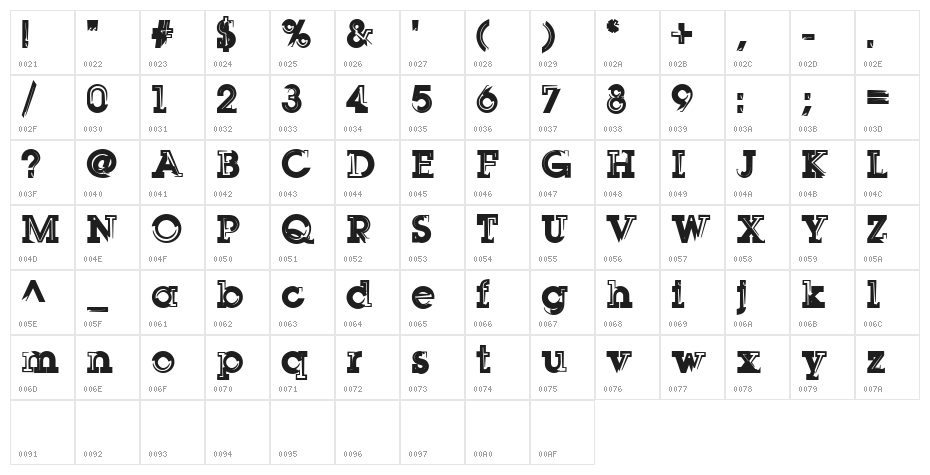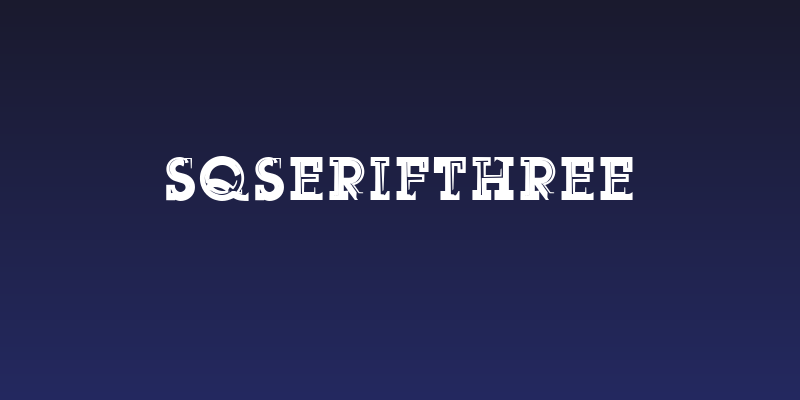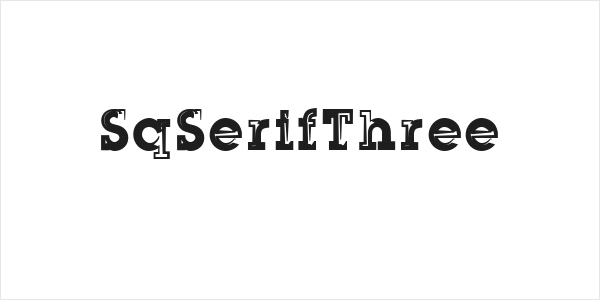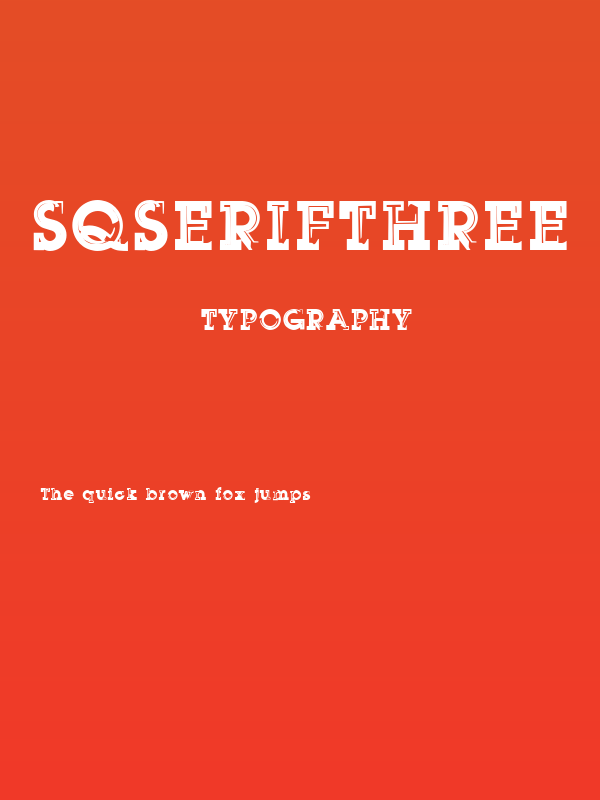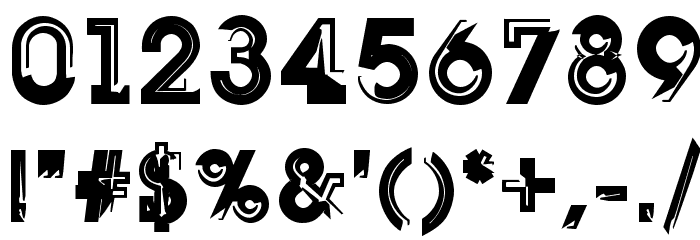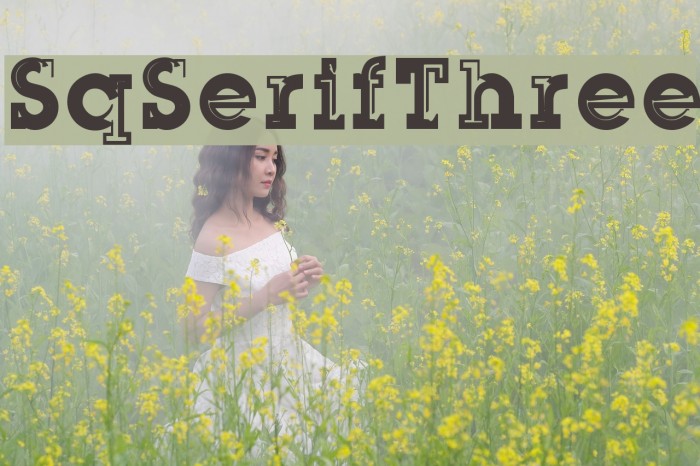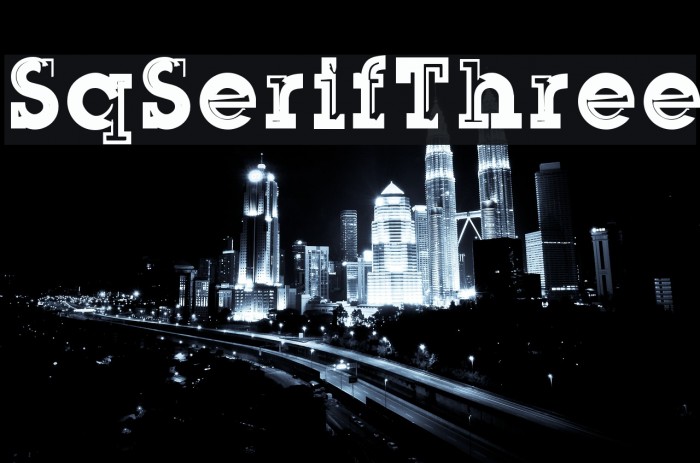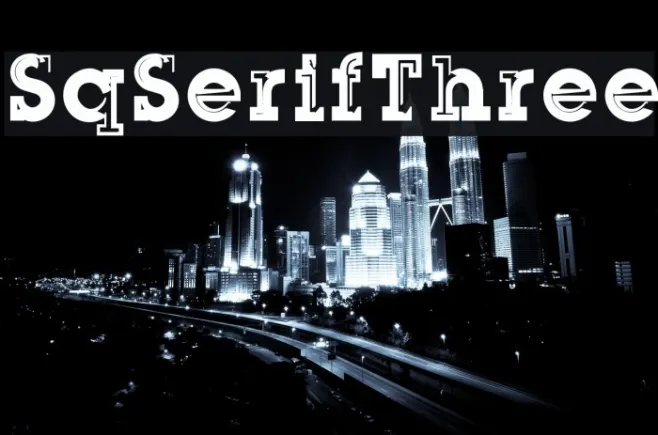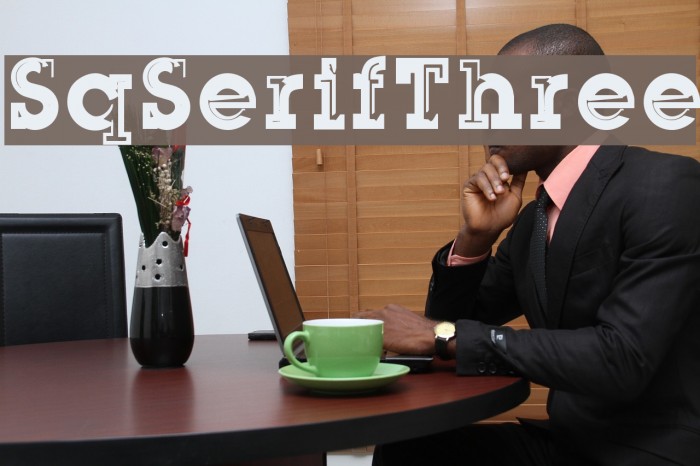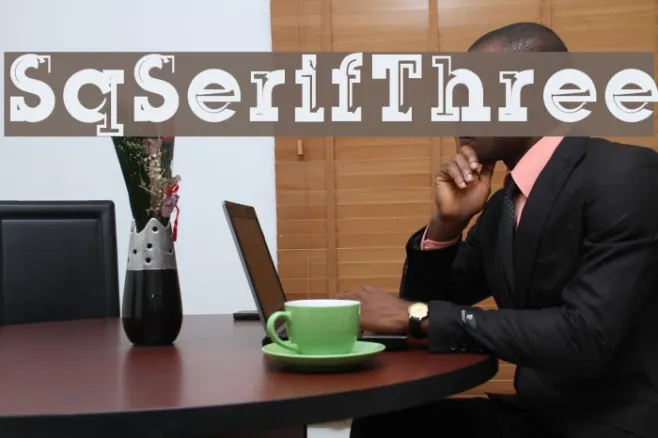
SqSerifThree Font
SqSerifThree Description
This font features a bold and striking design with a unique blend of modern and vintage elements. The characters are heavily stylized with thick strokes and sharp serifs, giving them a strong presence. The uppercase letters are particularly bold, with intricate detailing that adds depth and dimension. The lowercase letters maintain the boldness but with a slightly softer touch, making them versatile for various uses. The numbers and special characters follow the same bold and decorative style, ensuring consistency across all elements. This font is perfect for making a statement and grabbing attention.